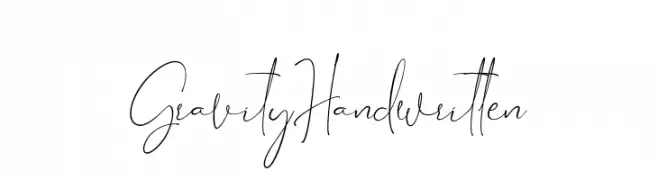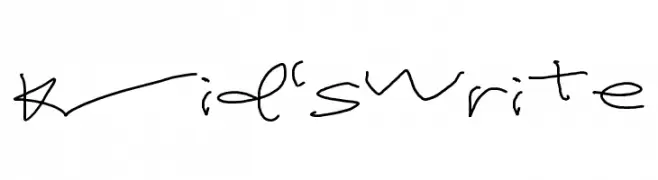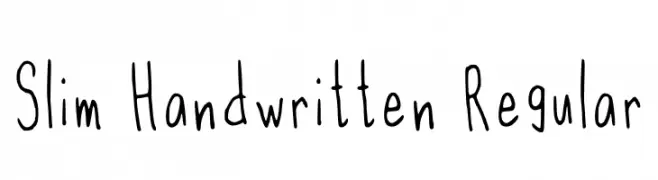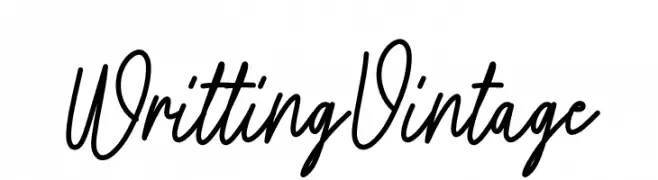
( Fonts by Scratchones )
A vintage-inspired handwritten font with elegant, fluid strokes.
( Fonts by FreshtypeINK )
A playful, handwritten script font with bold, expressive characters.
( Fonts by Ylva Winter )
A playful, casual handwritten font with a whimsical and informal style.
( Fonts by arisSome1 )
A playful, casual handwritten font with smooth, rounded strokes.
( Fonts by Elle Christy )
A playful, handwritten font with rounded, consistent strokes and a casual feel.
( Fonts by Andreana Celestinne Aguilar )
A slim, handwritten font with a casual and modern style.
( Fonts by ιтz¢σяια! )
Playful, child-like handwritten font.
( Fonts by Din Studio )
Elegant and modern handwritten font.
( Fonts by Arielle Dy )
Casual handwritten font with a playful style.
( Fonts by Felix Watling )
Playful handwritten font with rounded edges.